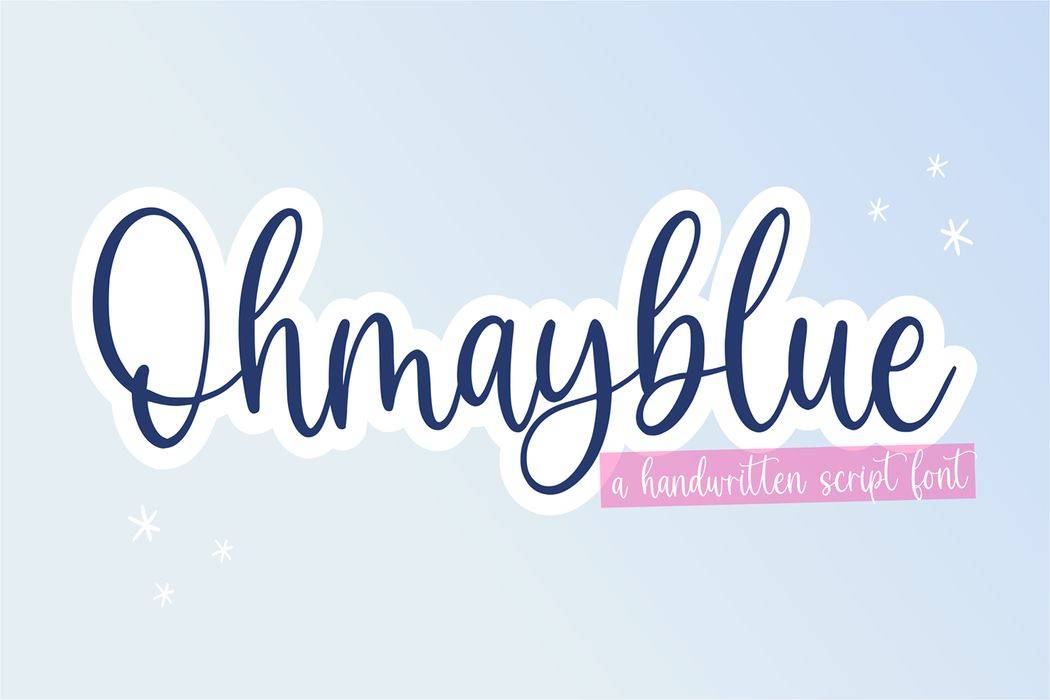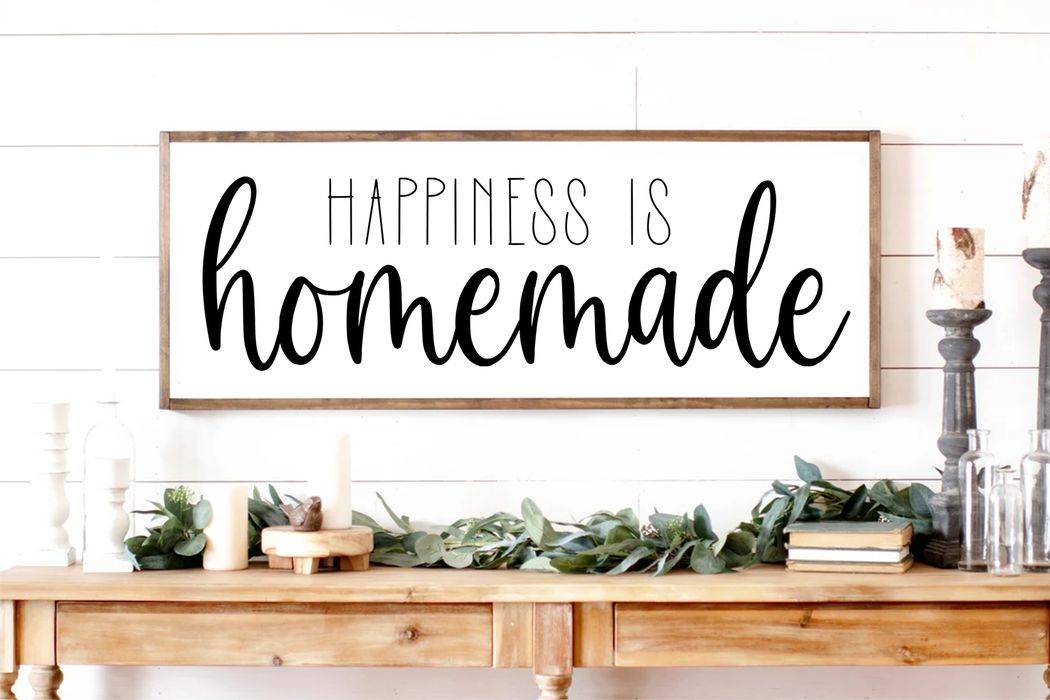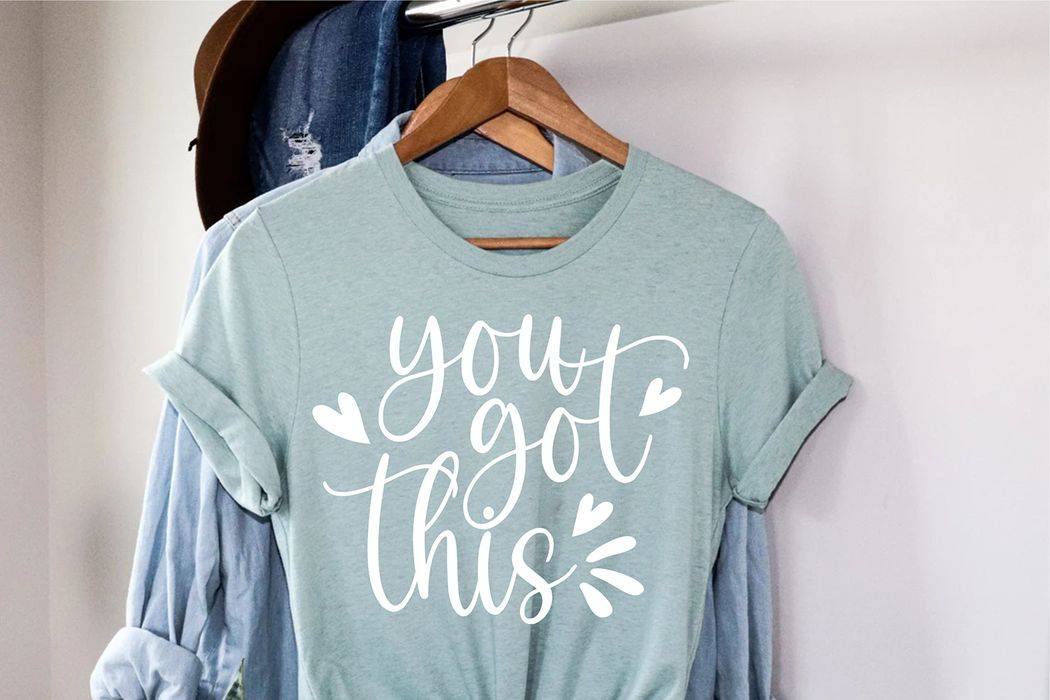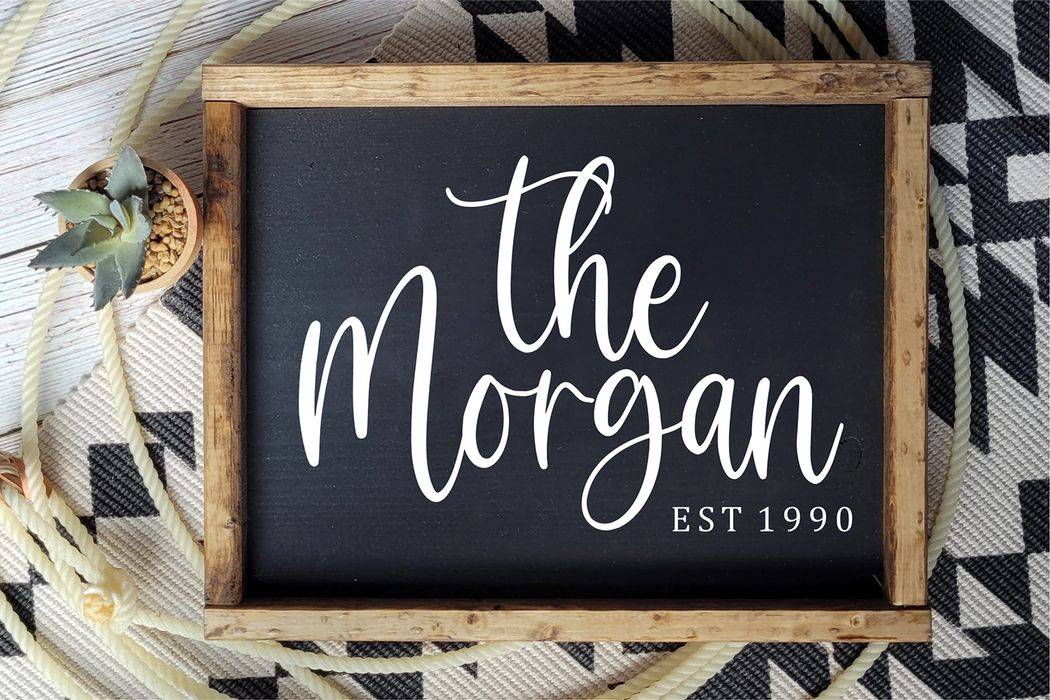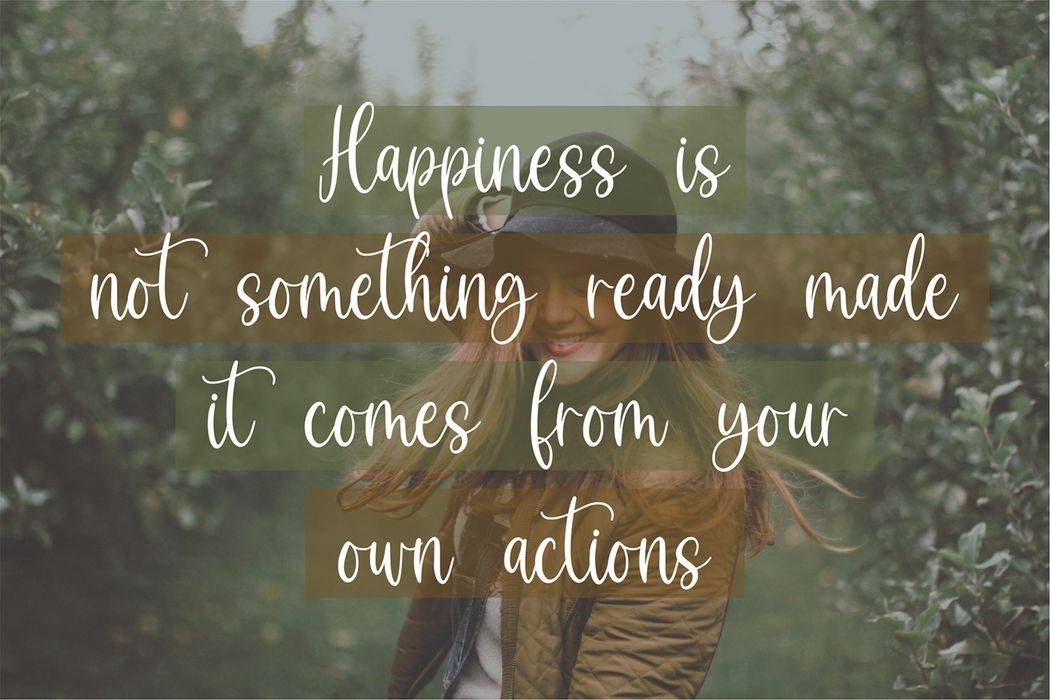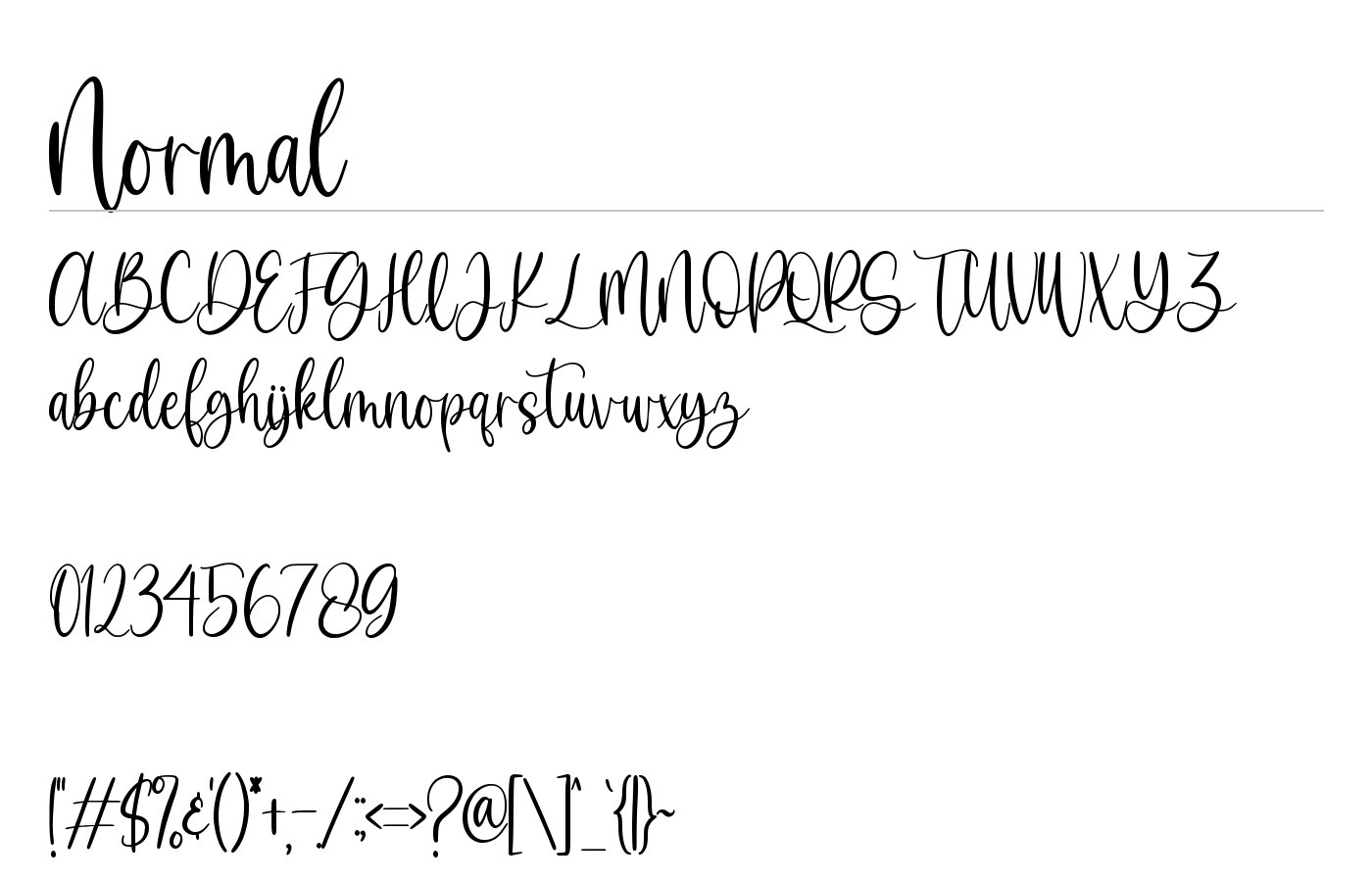
Ohmayblue is a delicate handwritten script font characterized by its slender strokes and elegant, flowing letterforms. Its light weight and tall x-height give it a graceful, airy appearance, making it ideal for creating a personal and sophisticated feel. Perfect for invitations, branding, and stylish editorial projects, Ohmayblue brings a charming, modern touch to designs that seek a refined yet approachable personality.
Ohmayblue Font
About Ohmayblue Font